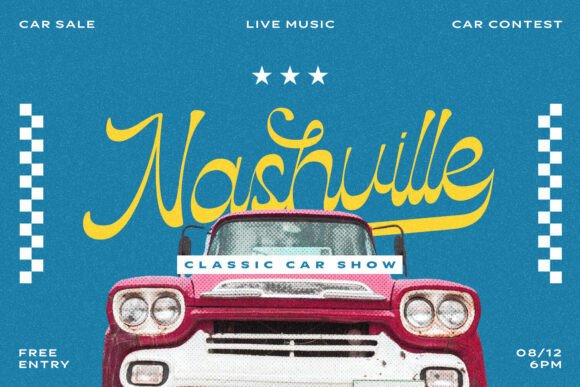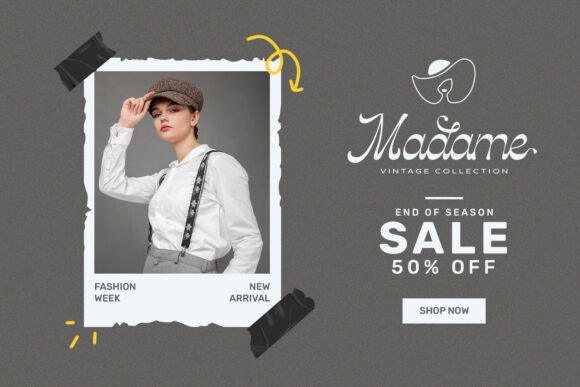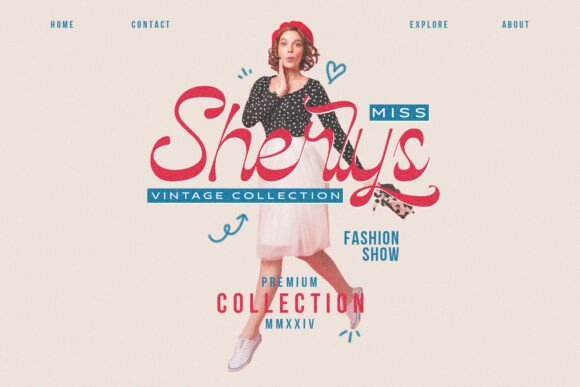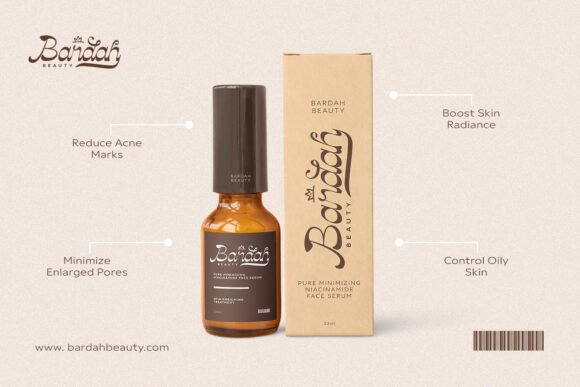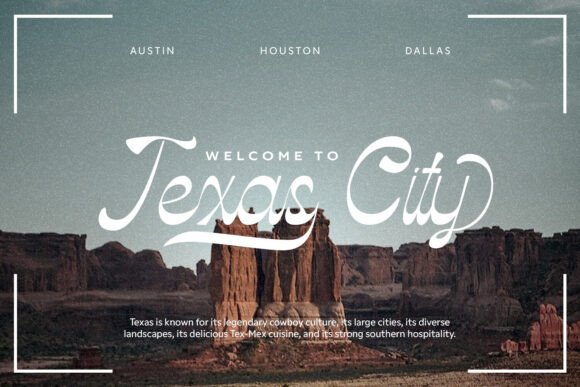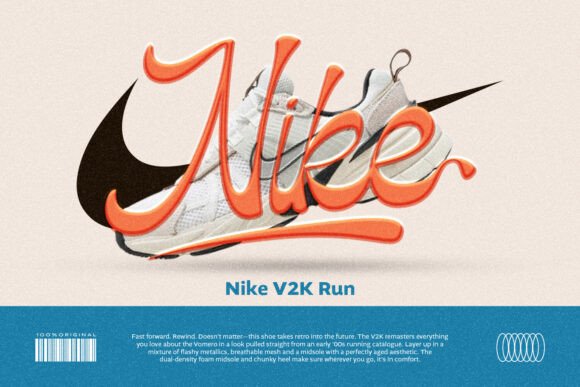
Introducing HC Fadella Font: A Timeless Retro Script for Elegant Designs
In the world of typography, few fonts manage to capture the essence of classic calligraphy while offering versatility for modern design projects. HC Fadella Retro Script is one such font that has gained popularity among designers and crafters alike for its elegant and vintage appeal. In this article, we’ll delve into the features, benefits, and uses of the HC Fadella Font, exploring how it can elevate your design projects to new heights.
What is HC Fadella Font?
HC Fadella Retro Script is a beautifully crafted script font that draws inspiration from traditional calligraphy. Its flowing lines, intricate details, and classic charm make it an ideal choice for designers seeking to add a touch of sophistication to their work. Whether you’re creating logos, invitations, titles, or any other design project that requires a timeless aesthetic, HC Fadella Font is sure to impress.
Key Features of HC Fadella Font
- Flowing Lines and Intricate Details: The font boasts smooth, flowing lines and intricate details that give it a classic, hand-crafted feel.
- Vintage Charm: HC Fadella Retro Script exudes a sense of nostalgia, making it perfect for projects that require a vintage or retro aesthetic.
- Elegant and Sophisticated: The font’s elegant design makes it suitable for high-end branding, luxury packaging, and sophisticated marketing materials.
- Versatile: HC Fadella Font can be used for a wide range of design projects, from logos and invitations to titles and more.
Benefits of Using HC Fadella Font
So, why choose HC Fadella Font for your design projects? Here are some benefits that make it a top choice among designers:
- Unique and Distinctive: HC Fadella Retro Script offers a unique and distinctive look that sets it apart from more common fonts.
- Easy to Read: Despite its intricate details, the font remains easy to read, making it suitable for body text and headlines.
- Customizable: The font can be customized to fit your brand’s style, ensuring consistency across all your design projects.
- Time-Saving: With HC Fadella Font, you can achieve professional-looking results without spending hours on design and typography.
Uses of HC Fadella Font
HC Fadella Retro Script is an incredibly versatile font that can be used in various design projects, including:
- Logo Design: Create elegant and sophisticated logos that make a lasting impression.
- Invitations and Stationery: Add a touch of vintage charm to your invitations, greeting cards, and stationery.
- Titles and Headlines: Use HC Fadella Font to create eye-catching titles and headlines for your blog posts, articles, and marketing materials.
- Branding and Packaging: Elevate your brand’s aesthetic with HC Fadella Font, perfect for luxury packaging, labels, and branding materials.
Tips for Using HC Fadella Font Effectively
To get the most out of HC Fadella Retro Script, follow these tips:
- Pair with Simple Fonts: Pair HC Fadella Font with simple, sans-serif fonts to create a striking contrast.
- Use for Headlines and Titles: Reserve HC Fadella Font for headlines and titles to create visual interest and emphasis.
- Experiment with Colors: Try HC Fadella Font with different colors and textures to add depth and dimension to your designs.
- Pay Attention to Spacing: Ensure adequate spacing between letters and lines to maintain readability and elegance.
HC Fadella Retro Script is a stunning script font that offers a perfect blend of classic charm and modern versatility. With its flowing lines, intricate details, and elegant design, this font is sure to elevate your design projects and add a touch of sophistication to your work. Whether you’re a designer, crafter, or DIY enthusiast, HC Fadella Font is an excellent choice for creating beautiful and timeless designs.